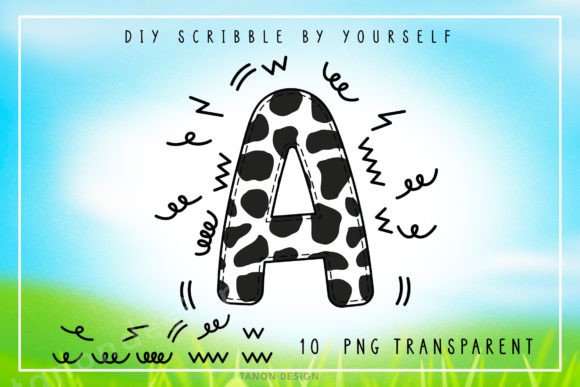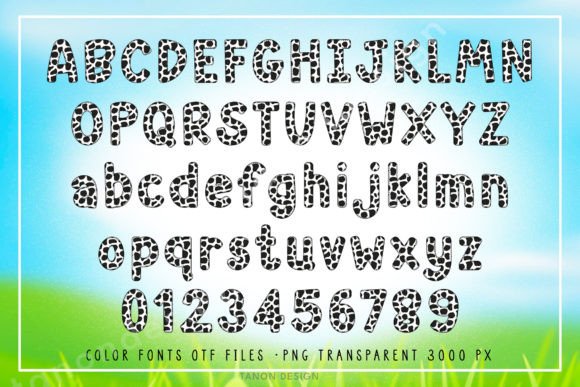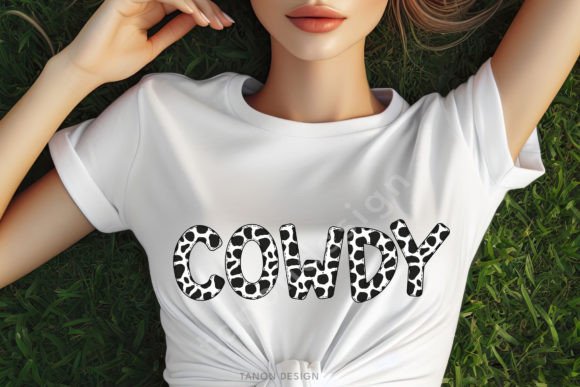
Cowdy Font: Elevate Your Designs with a Unique and Versatile Typeface
Are you tired of using the same old fonts in your designs? Look no further than the Cowdy Font, a fresh and exciting typeface that’s perfect for designers and crafters alike. With its unique blend of style and versatility, this font is sure to take your projects to the next level.
- Scribble elements
The Cowdy Font is incredibly versatile, making it perfect for a wide range of design projects, including:
- T-shirt designs
- Mug designs
- Digital designs
- Crafts
- Cards
- Any other project you can imagine!
Whether you’re a professional designer or a crafty hobbyist, this font is sure to become a favorite in your collection.
Why Choose the Cowdy Font?
So, what sets the Cowdy Font apart from other typefaces on the market? Here are just a few reasons why designers and crafters love this font:
- Unique style: The Cowdy Font boasts a fresh and exciting design that’s sure to make your projects stand out.
- Versatility: With its wide range of applications, this font is perfect for designers and crafters who work on various projects.
Tips and Tricks for Using the Cowdy Font
To get the most out of the Cowdy Font, here are a few tips and tricks to keep in mind:
- Experiment with colors: The color version of the font offers endless possibilities for creative color combinations.
- Mix and match: Combine the Cowdy Font with other typefaces or graphics to create unique and eye-catching designs.
In conclusion, the Cowdy Font is an exceptional typeface that’s perfect for designers and crafters looking to elevate their projects. With its unique style, versatility, and high-quality files, this font is sure to become a staple in your collection. So why wait? Get your hands on the Cowdy Font today and start creating stunning designs that will leave a lasting impression!